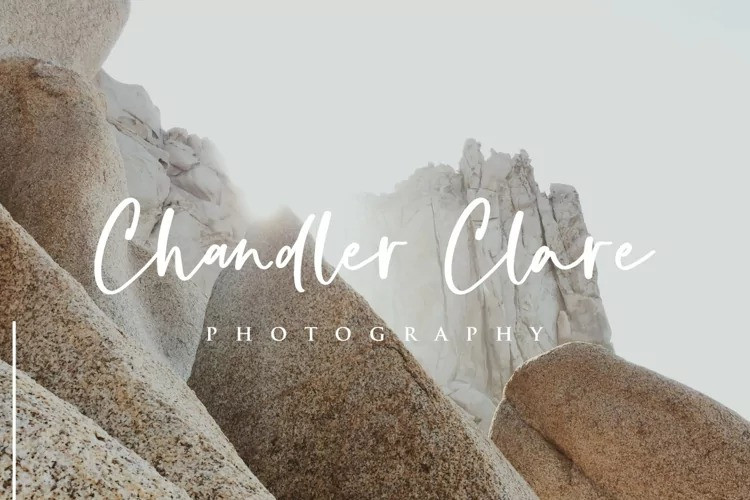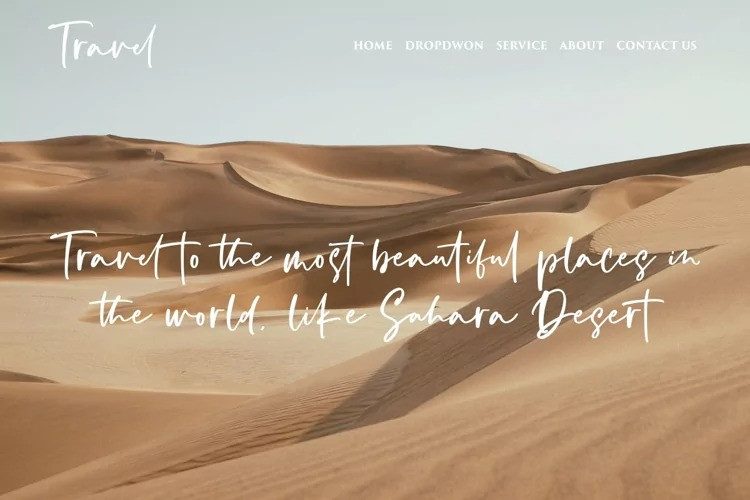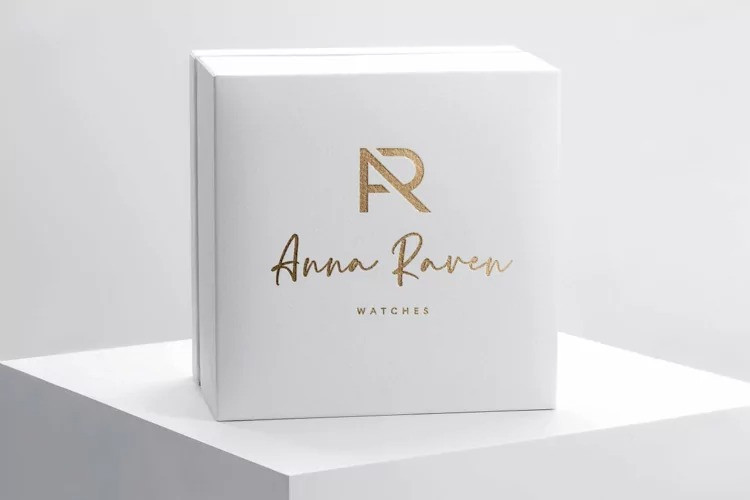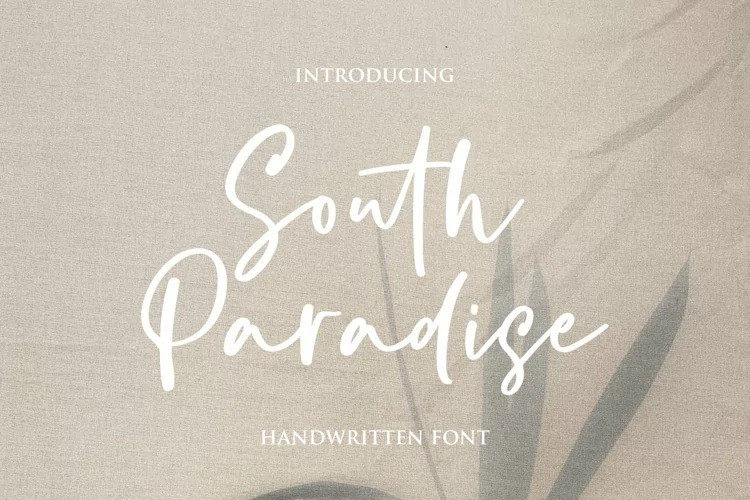
South Paradise Font
South Paradise Handwritten Font
It’s a modern script font with a signature style look. Made from font designer named fikryal. This font is made in a modern style, very casual, and suitable for your various design needs. it’s perfect for logo, branding, title, social media posts, advertisements, product packaging, product designs, label, photography, watermark, special event, magazine, web design, etc.